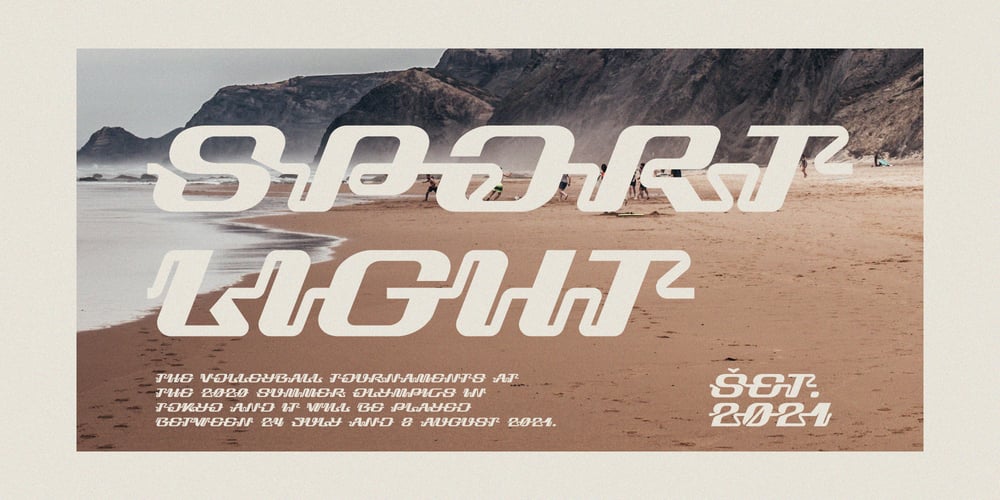
Sportlight Font Family was designed by Roman Korolev and published by Kaer. Sportlight contains 1 styles and family package options. Sportlight is a font, each letter connects with near one by middle-high line. This font is inspired by classic car emblems. You can use it in magazine headlines, badges, and posters.Font features: All-caps, numbers, punctuation, and multilanguage support.Please feel free to request to add characters you need: kaer.pro@gmail.com